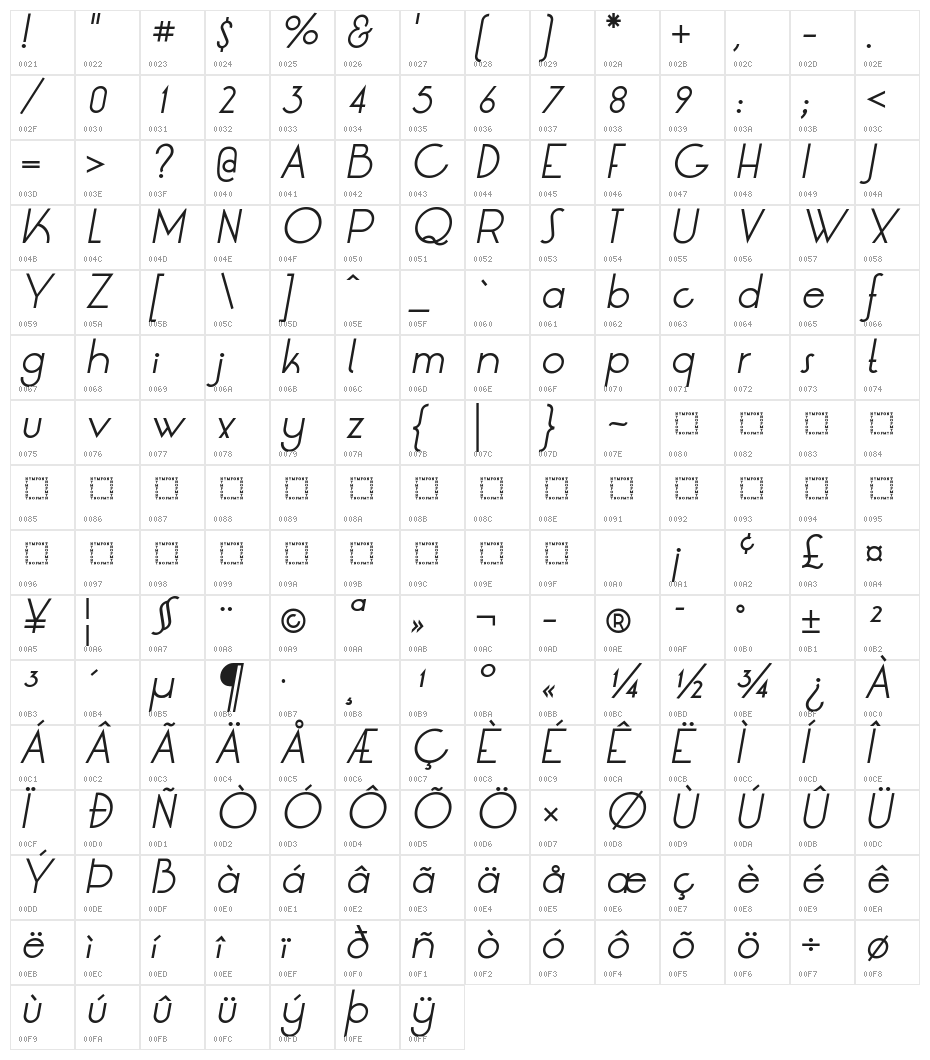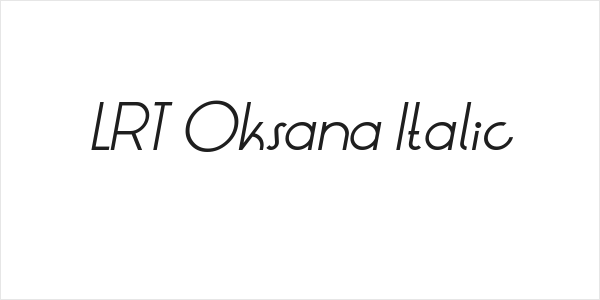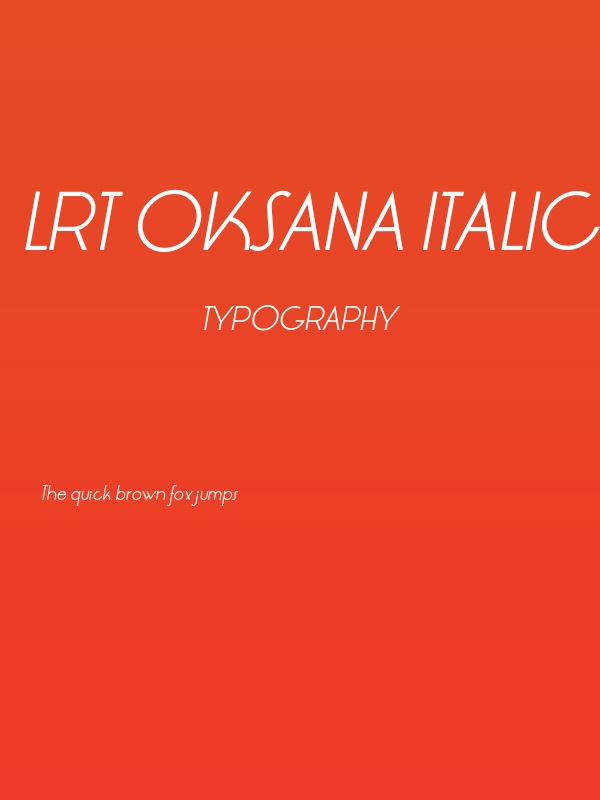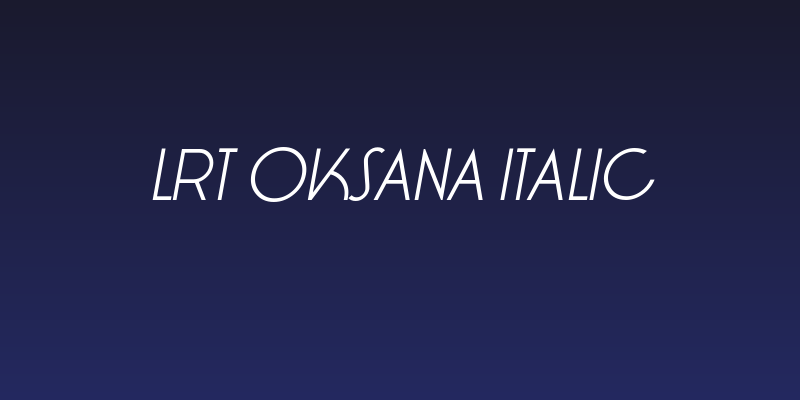
LRT Oksana Italic Font
LRT Oksana Italic Description
This font features a sleek and modern italic style, characterized by its smooth curves and elegant slant. The uppercase letters are tall and slightly narrow, giving a sophisticated appearance, while the lowercase letters maintain a consistent flow with rounded edges. The numerals are clean and easy to read, complementing the overall aesthetic. Special characters are distinct and well-integrated, adding versatility to the font. The design is suitable for conveying a sense of elegance and modernity, making it ideal for various creative applications.
| Proposed Projects | Ideal for fashion magazines, luxury branding, elegant invitations, and modern web design. |